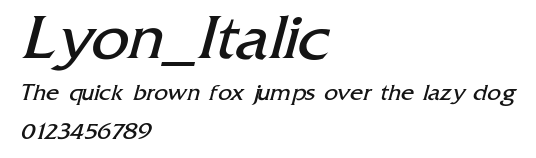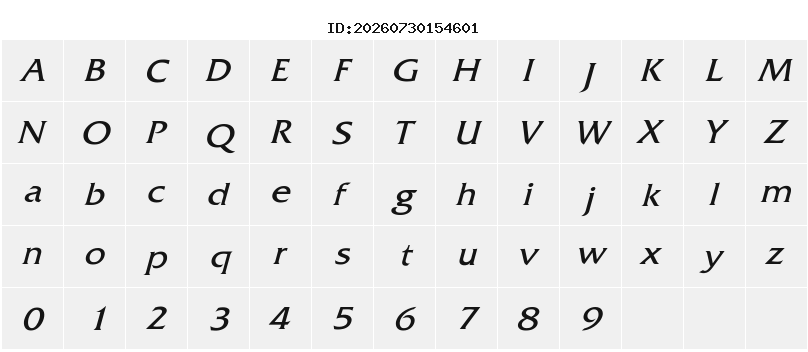
Lyon_Italic Preview
About Lyon_Italic.ttf
Lyon_Italic.ttf is a modern, elegant sans-serif font designed for ultimate readability and visual harmony. Perfect for branding, headlines, web design, and print materials.